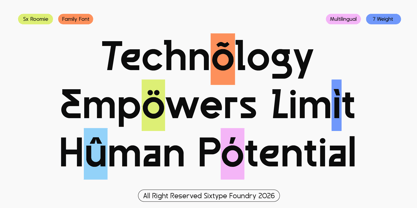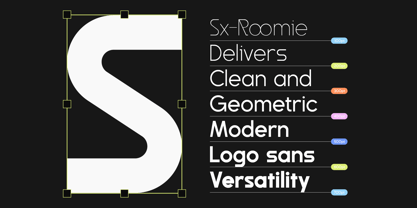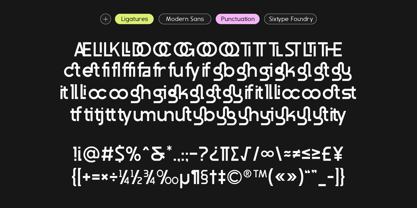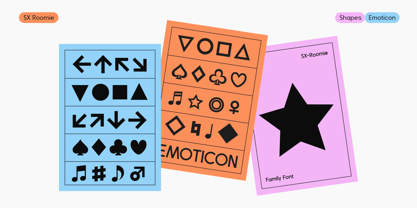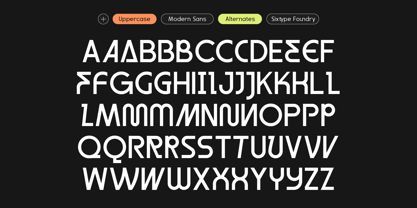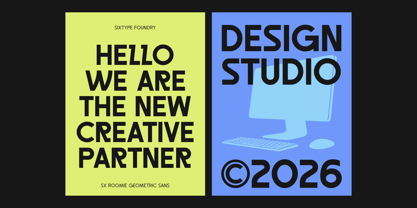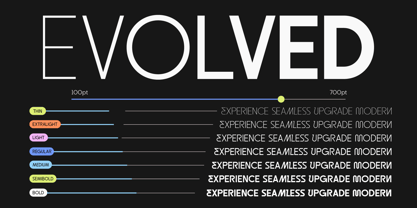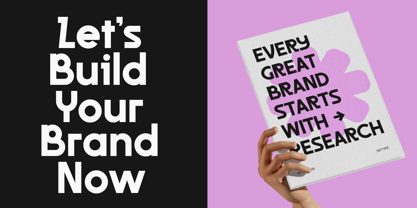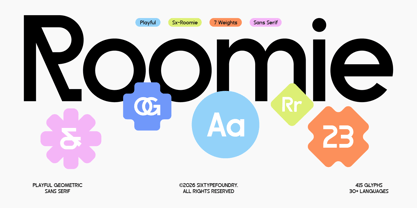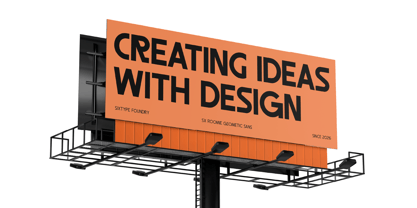
Sx Roomie
Sx Roomie is a geometric sans serif typeface designed for branding, user interfaces, and headlines that require a clean yet warm appearance. Its letterforms feature true circular bowls, with an almost perfectly round O and Q, complemented by a single-story a and g. The soft, curved terminals on letters such as t, f, g, and y enhance the overall geometry, avoiding a flat look. With a generous x-height, Sx Roomie maintains legibility even at small sizes, making it versatile for both confident headlines and subtle UI copy. What distinguishes Sx Roomie is its unique balance of geometric structure and warmth. The curved terminal flicks prevent long headlines from appearing overly mechanical, while a comprehensive set of alternates—including an italic-cut option for capitals, a flat-terminal alternate for lowercase, and a bonus set of arrow and shape glyphs—provides greater versatility than typical single-style geometric sans typefaces. Available in seven weights, from Thin to Bold, Sx Roomie adapts seamlessly from delicate labels to bold standalone headlines, eliminating the need for a secondary typeface. This typeface is ideal for logo and brand identity design, app and website interfaces, editorial and magazine headlines, social media graphics, product packaging, presentation slides, and posters or signage. With its range of weights, Sx Roomie transitions effortlessly from Thin for subtle text to Bold for impactful headlines that command attention.